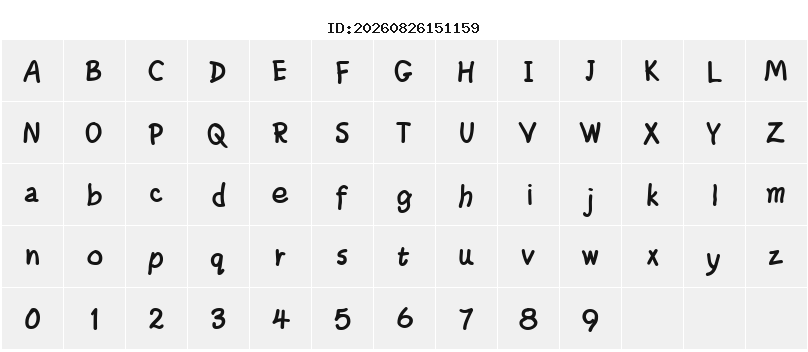
WalcomeOne Preview
• Font Name: WalcomeOne
• Full Font Name: WalcomeOne Bold
About WalcomeOne.ttf
WalcomeOne.ttf is a modern, elegant sans-serif font designed for ultimate readability and visual harmony. Perfect for branding, headlines, web design, and print materials.